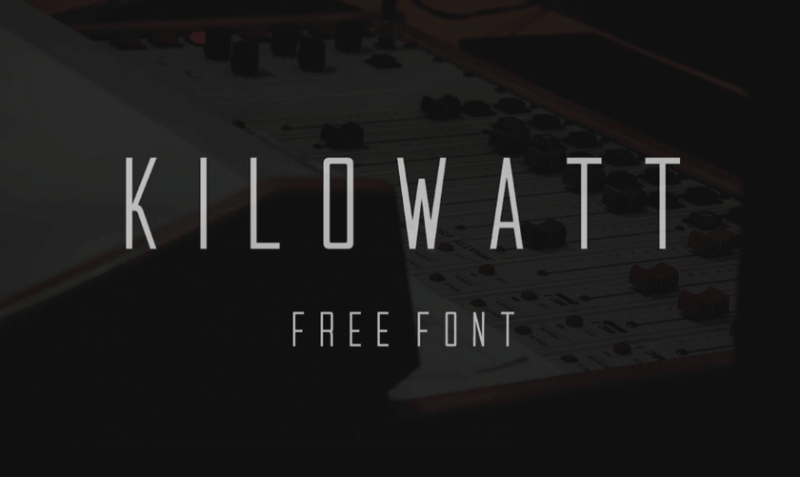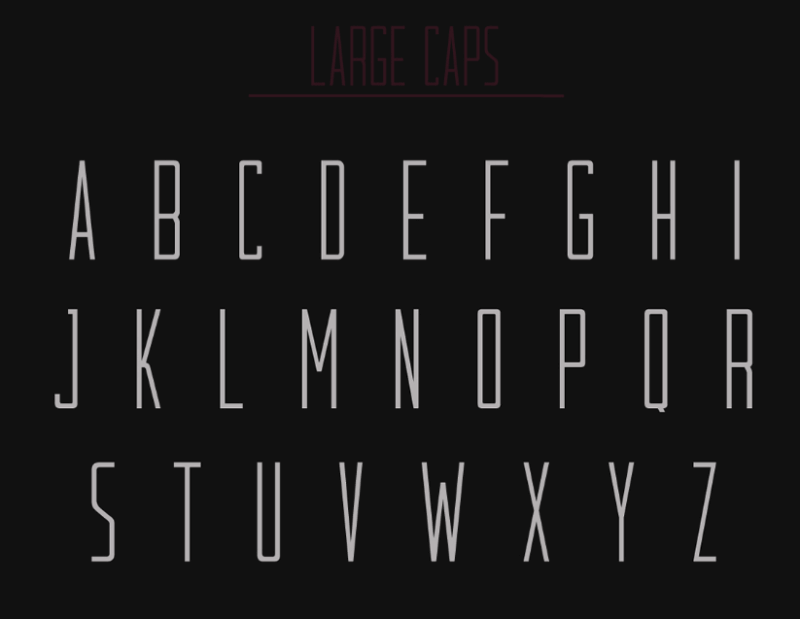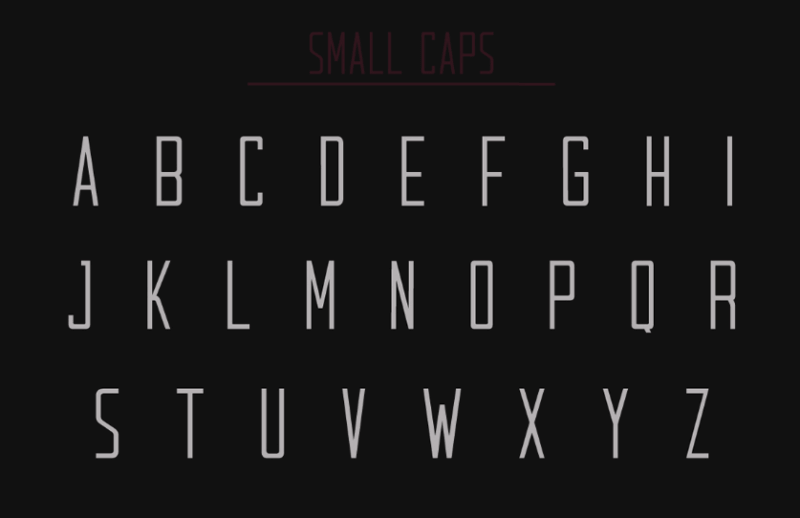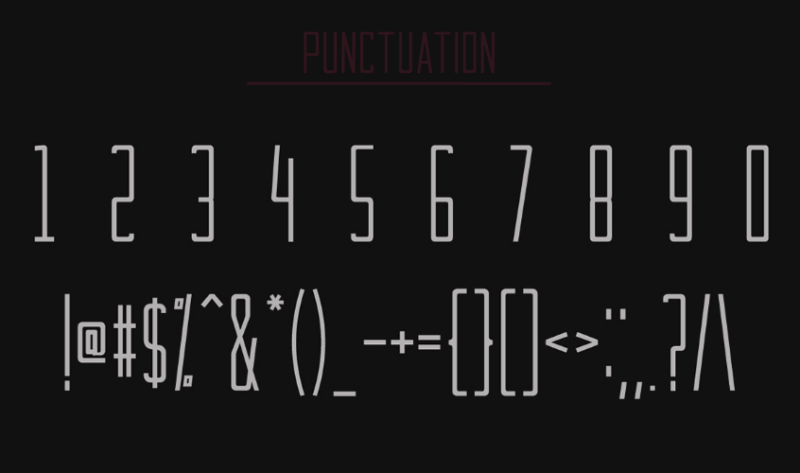
Kilowatt free condensed sans serif font
Kilowatt free condensed sans serif font is all in caps divided in two kinds, large caps and small caps, with a square condensed structure, it has rounded corners. It’s clean, simple and probably will be useful for some kind of flyers, posters, badges, headlines, whatever your imagination decides.
Kilowatt font
Kilowatt font large caps
Kilowatt font small caps
Kilowatt free sans serif font ponctuation